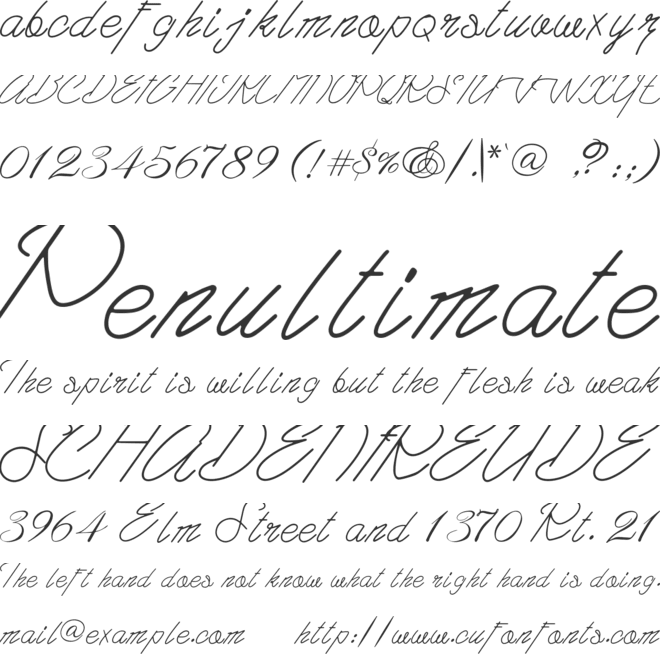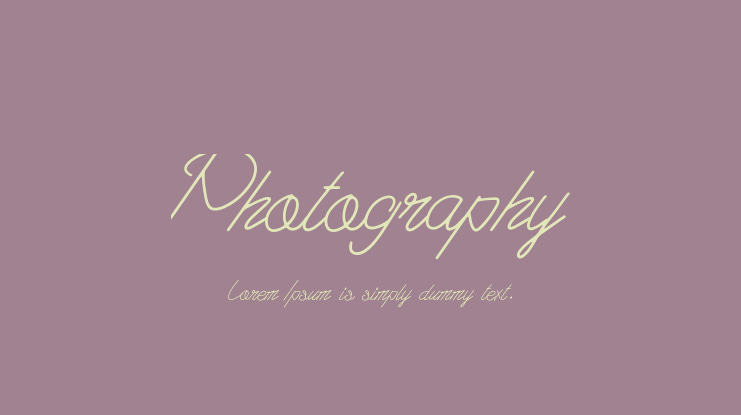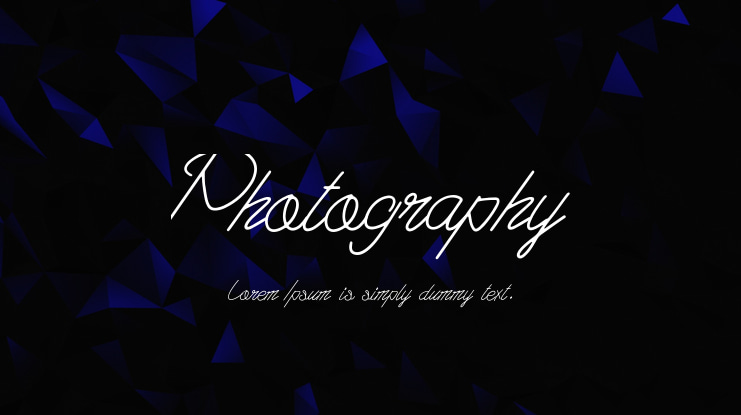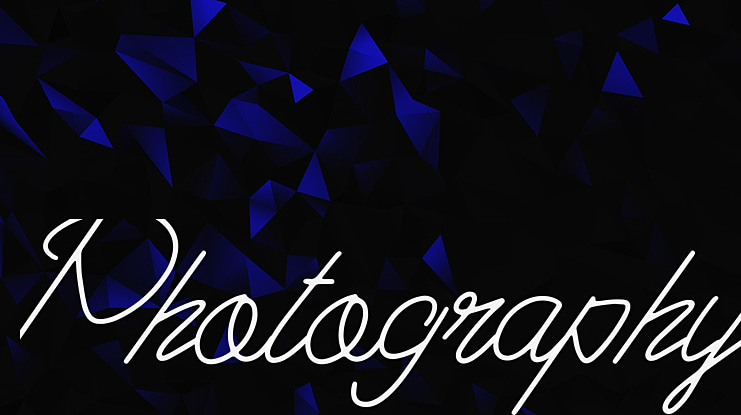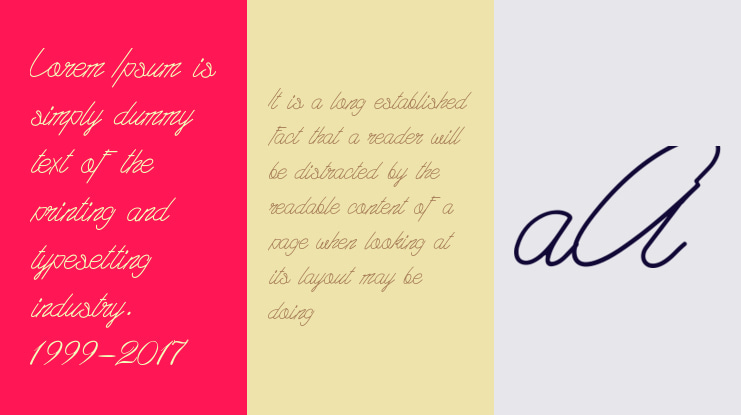
Photography Font
Photography is a thin and well balanced handwritten font. Suitable to a wide variety of designs due to its neat and simple style, this font has the potential to become your favorite go-to font, no matter the occasion!